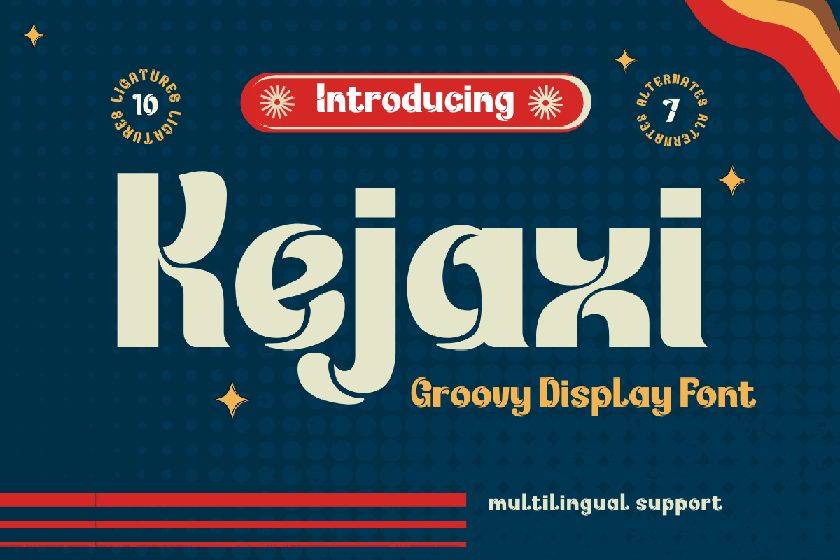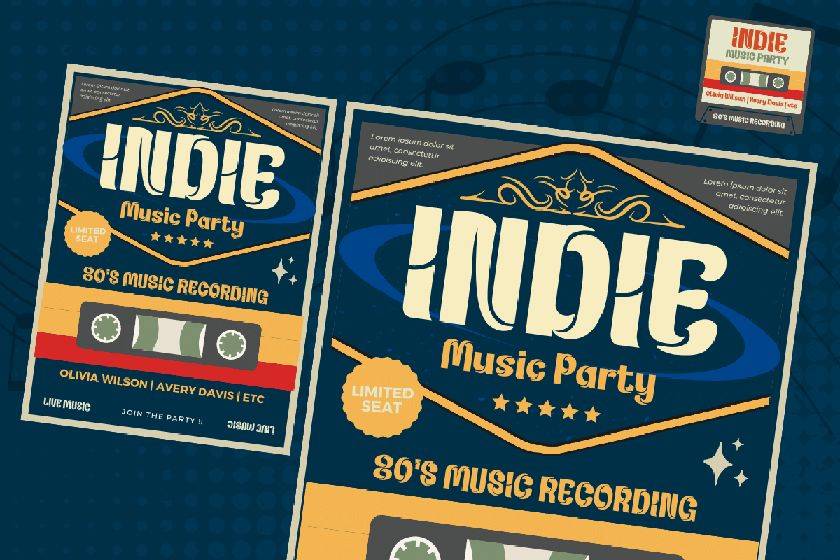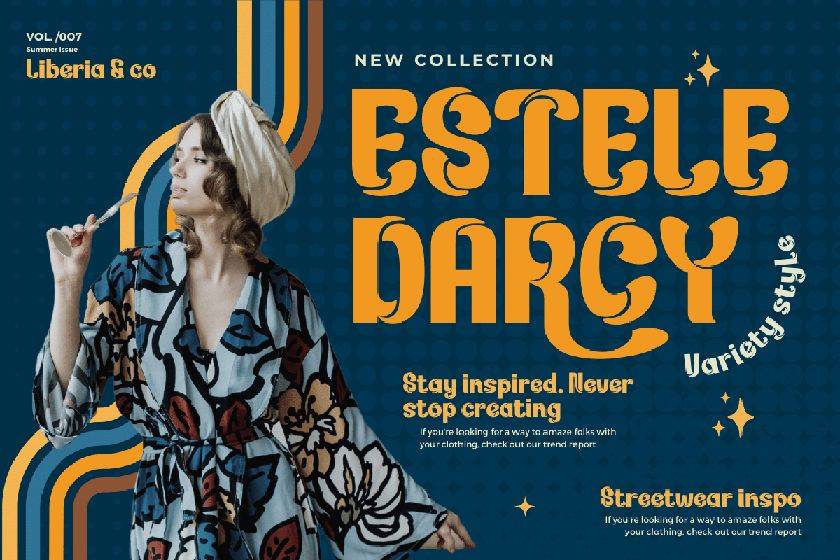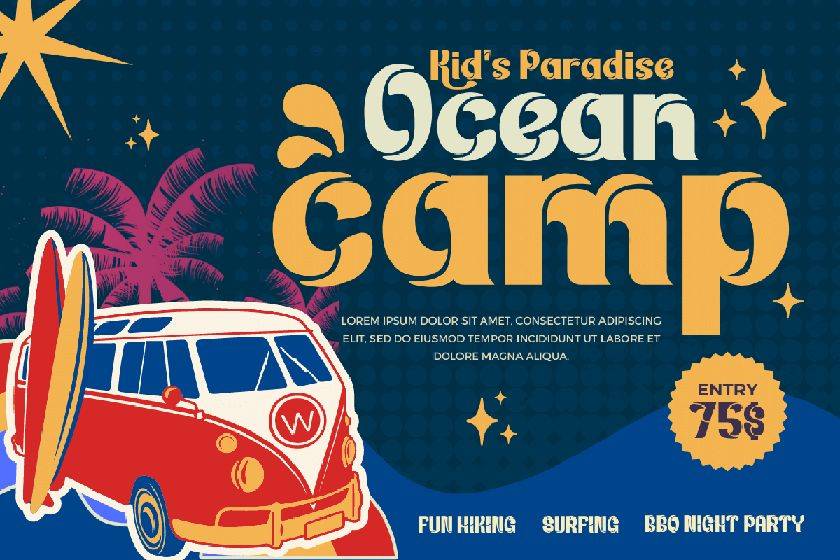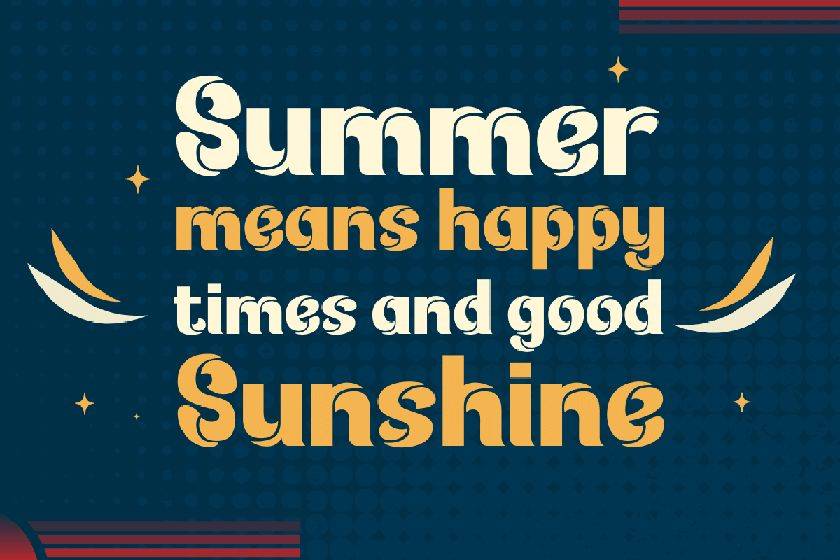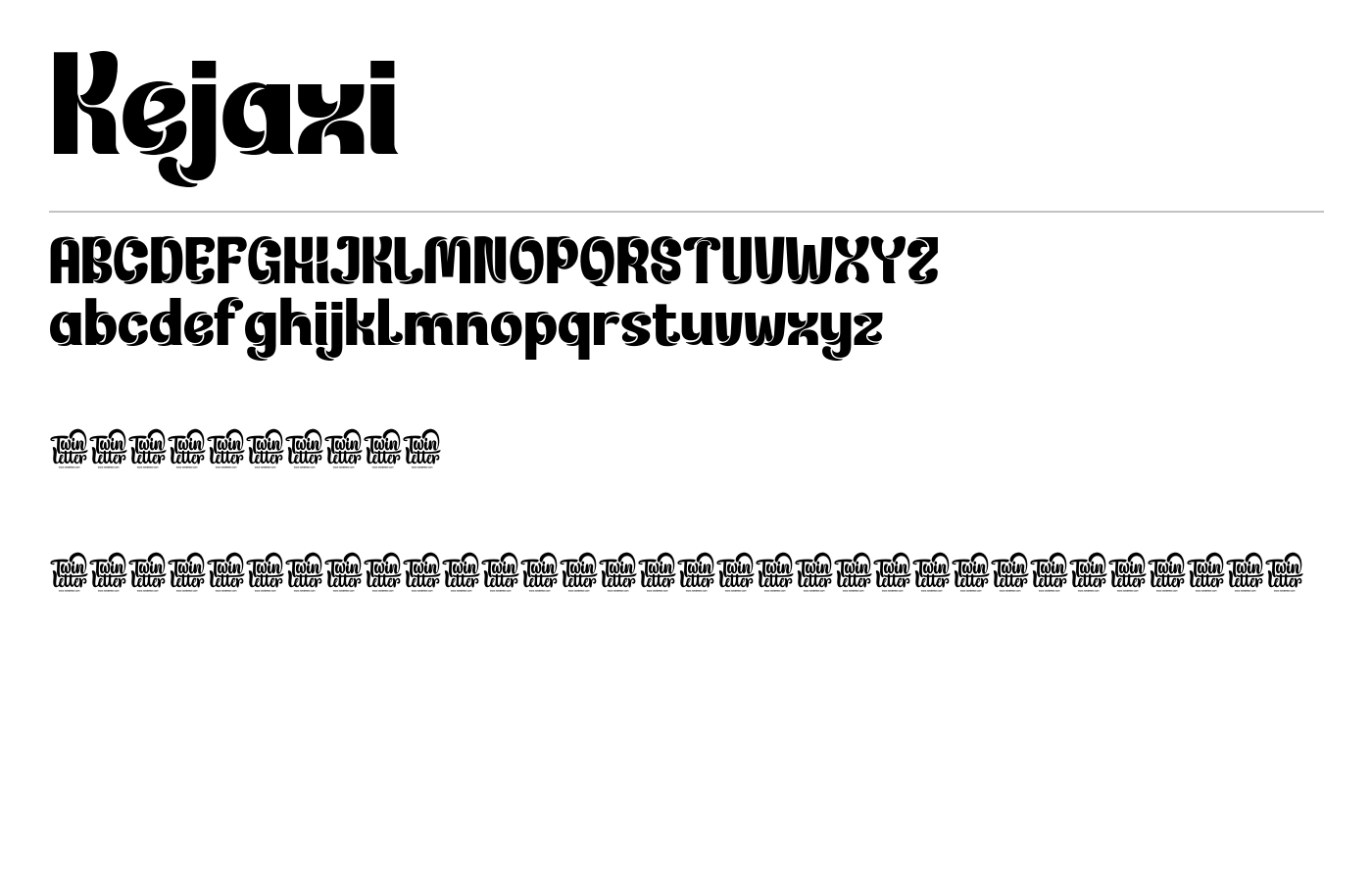
Kejaxi is a bold, decorative serif font with a unique blend of thick and thin strokes that create a dramatic contrast and a playful, artistic vibe. Its distinct letterforms, featuring curvy serifs and intricate details, make it perfect for eye-catching headlines, logos, and creative projects that want to stand out with a quirky, vintage flair. This font works best in display settings where its personality can shine without sacrificing readability.
Kejaxi Font
About Kejaxi Font